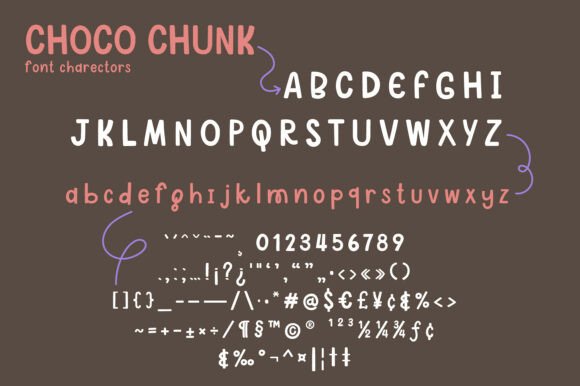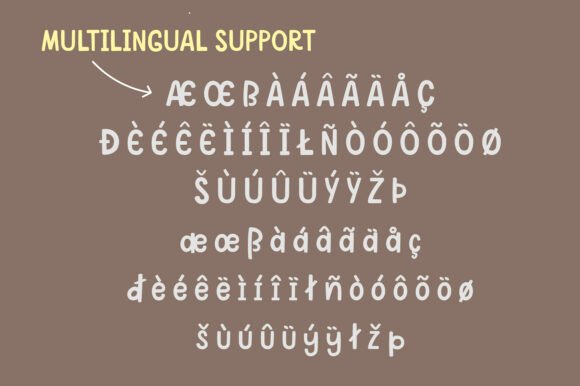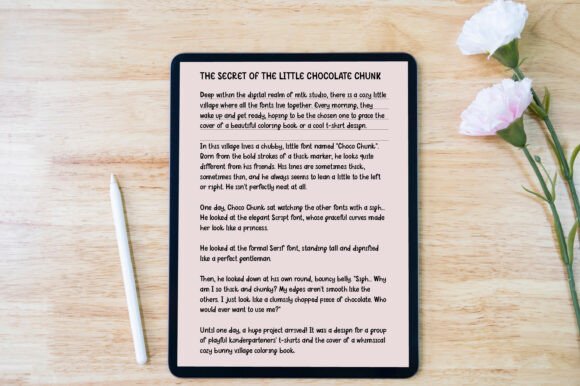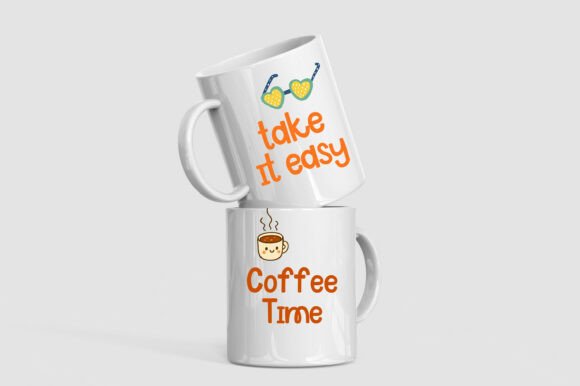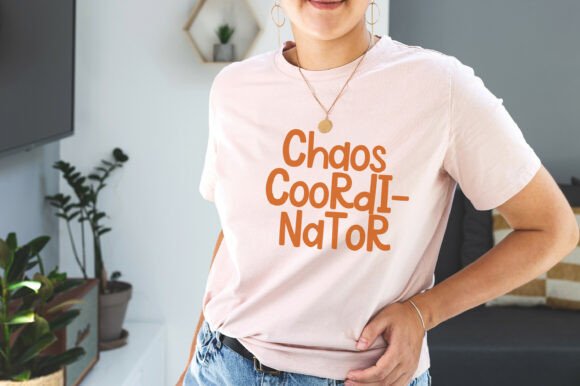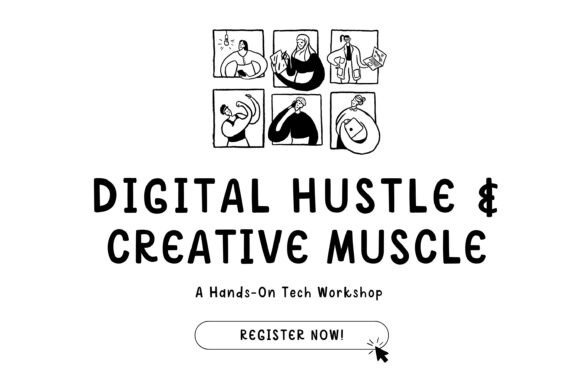
Bring a Fun, Organic, and Standout Vibe to Your Craft Projects with Choco Chunk
Are you tired of using the same old fonts for your craft projects? Do you want to add a touch of personality and whimsy to your designs? Look no further than Choco Chunk, a bold handwritten font that’s perfect for crafters, designers, and DIY enthusiasts. With its thick, uneven strokes and highly legible design, Choco Chunk is sure to make your text pop and bring a fun, organic vibe to your projects.
The Inspiration Behind Choco Chunk
Choco Chunk was designed with crafters in mind. The font’s creator wanted to create a font that would mimic the natural feel of a real marker, with all its imperfections and quirks. The result is a font that looks like it was written with a marker, complete with thick, uneven strokes and a playful, hand-scrawled feel. This makes Choco Chunk perfect for craft projects that require a personal touch, such as handmade cards, scrapbooking, and DIY gifts.
Key Features of Choco Chunk
So what makes Choco Chunk so special? Here are just a few of its key features:
• Bold and playful design: Choco Chunk is a bold font that’s perfect for making a statement. Its thick, uneven strokes give it a playful, hand-scrawled feel that’s sure to grab attention.
• Highly legible: Despite its bold design, Choco Chunk is incredibly legible, even at small sizes. This makes it perfect for use in a variety of craft projects, from t-shirt quotes to digital planners.
• Clean and smooth nodes: Choco Chunk has been designed with cutting machines in mind. Its clean and smooth nodes make it easy to use with machines like Cricut and Silhouette, ensuring that your designs come out perfectly every time.
Uses for Choco Chunk
So what can you use Choco Chunk for? The possibilities are endless! Here are just a few ideas to get you started:
• T-shirt quotes: Choco Chunk is perfect for creating bold, eye-catching quotes for t-shirts, hoodies, and other apparel.
• Mug designs: Add a touch of personality to your mug designs with Choco Chunk’s playful, hand-scrawled feel.
• Fun stickers: Choco Chunk is perfect for creating fun, colorful stickers that are sure to grab attention.
• Whimsical digital planners: Add a touch of whimsy to your digital planners with Choco Chunk’s bold, playful design.
Tips for Using Choco Chunk
Here are a few tips for getting the most out of Choco Chunk:
• Experiment with different colors: Choco Chunk looks great in a variety of colors, from bright and bold to pastel and soft. Experiment with different colors to find the perfect look for your project.
• Pair with other fonts: Choco Chunk pairs well with a variety of other fonts, from clean and simple sans serifs to bold and playful script fonts. Experiment with different pairings to find the perfect look for your project.
• Don’t be afraid to get creative: Choco Chunk is a versatile font that can be used in a variety of creative ways. Don’t be afraid to experiment and try new things!
If you’re looking for a font that will bring a fun, organic, and standout vibe to your craft projects, look no further than Choco Chunk. With its bold, playful design and highly legible strokes, Choco Chunk is perfect for crafters, designers, and DIY enthusiasts. So why wait? Download Choco Chunk today and start adding a touch of personality to your craft projects!